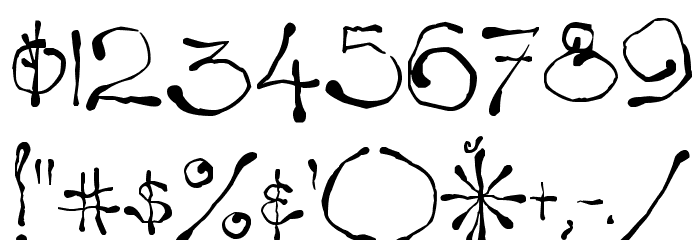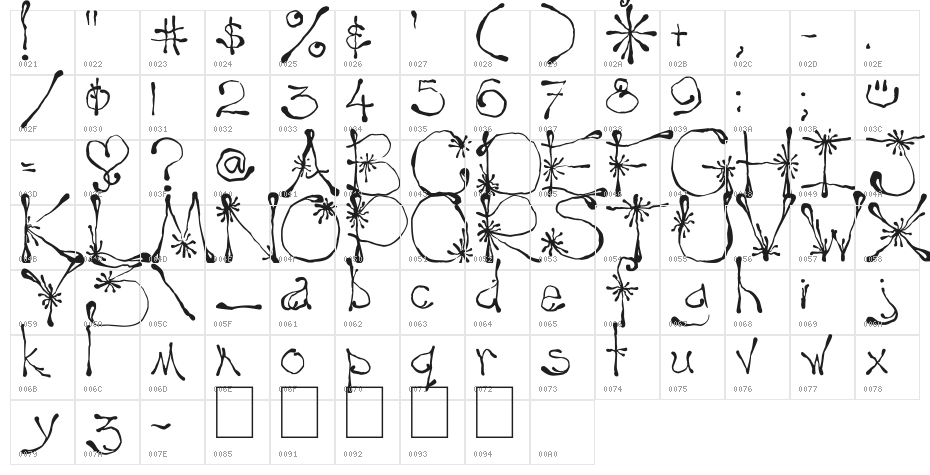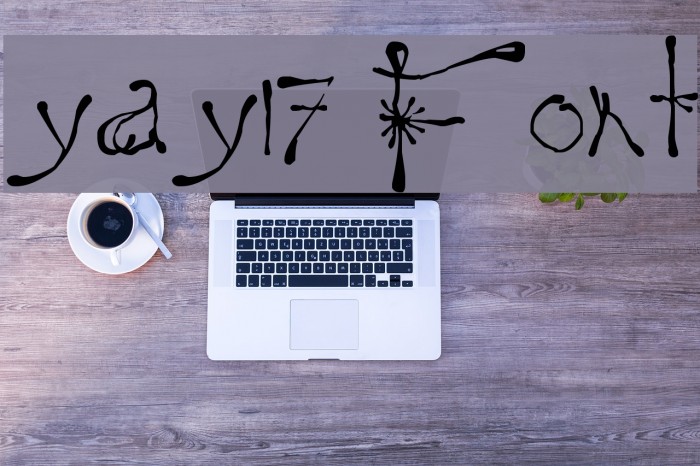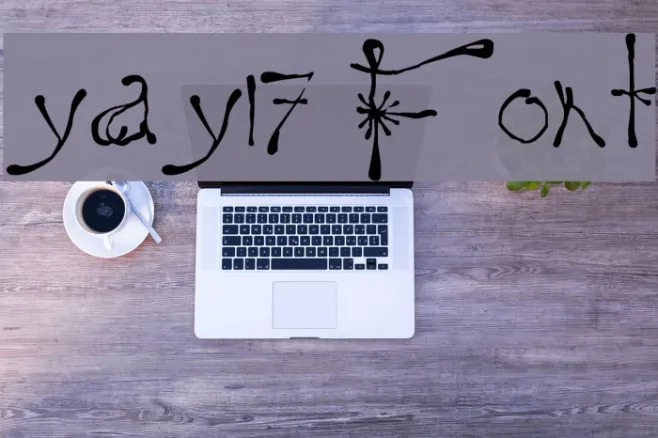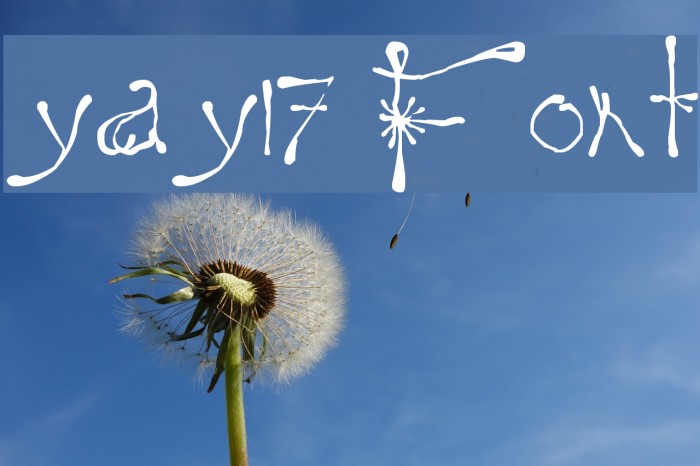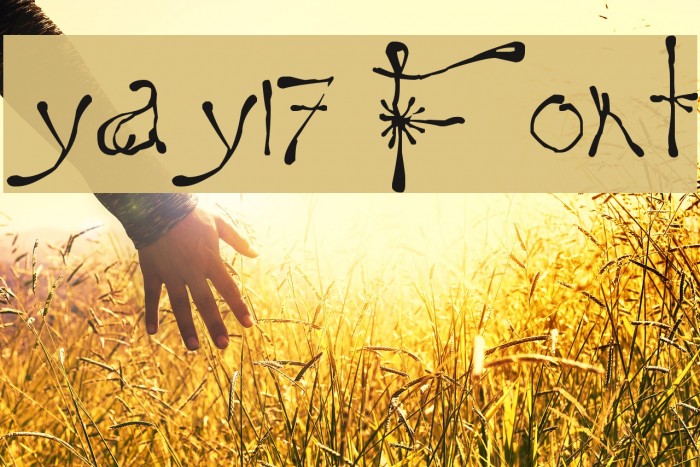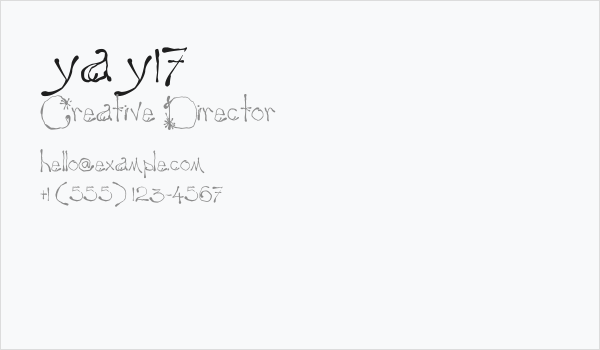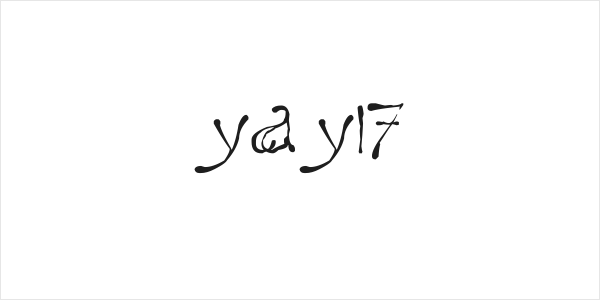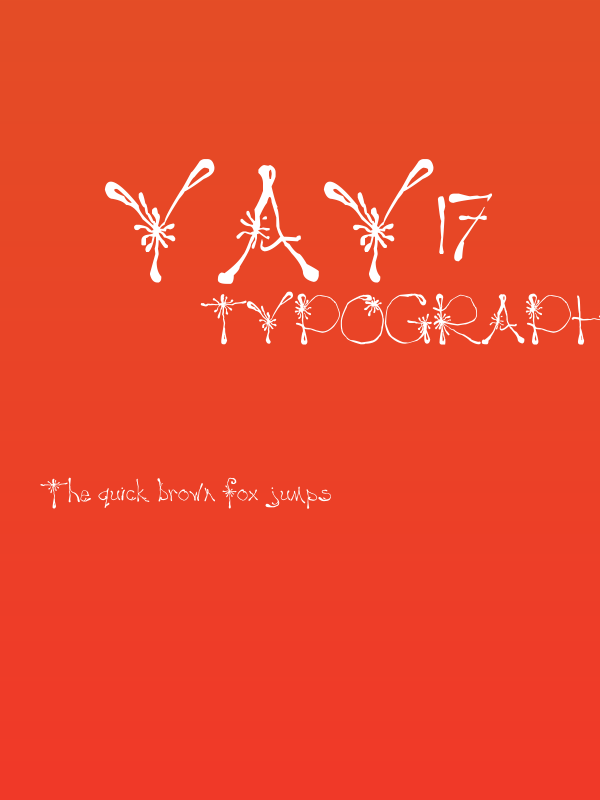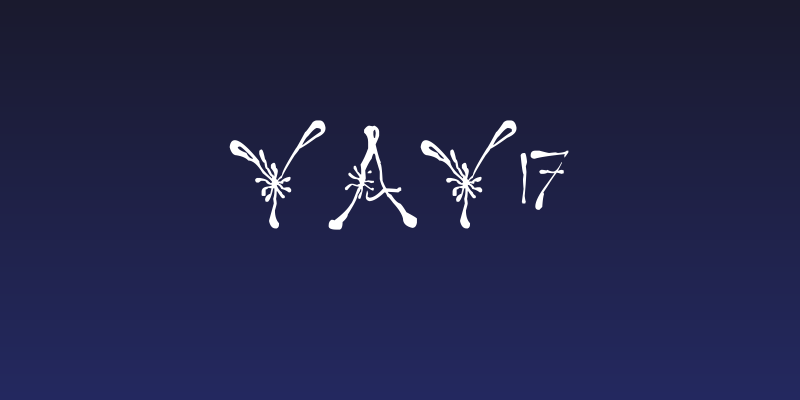
yay17 Font
yay17 Description
This font features a whimsical and decorative style, characterized by playful, star-like embellishments integrated into the letterforms. The strokes are uneven and organic, giving it a hand-drawn appearance. Each character is unique, with varying thicknesses and a slightly irregular baseline, enhancing its artistic and creative flair. The font includes both uppercase and lowercase letters, numbers, and a selection of special characters, all maintaining the same decorative theme. Its distinctive style makes it stand out, ideal for projects that require a touch of creativity and uniqueness.
YAY17 UPPERCASE
YAY17 LOWERCASE
YAY17 OTHER CHARS
| Use Case | Headlines, Artistic projects, Branding |
| Proposed Projects | Ideal for creative projects such as greeting cards, invitations, posters, and artistic branding. |